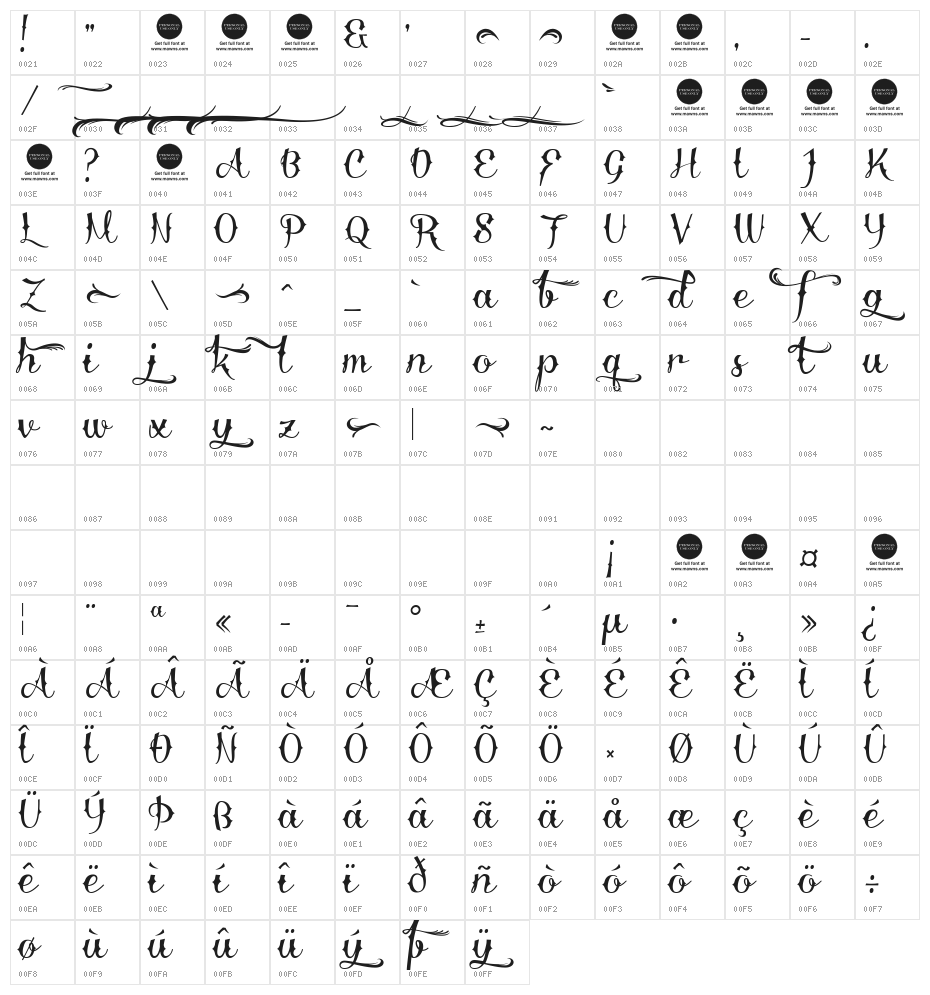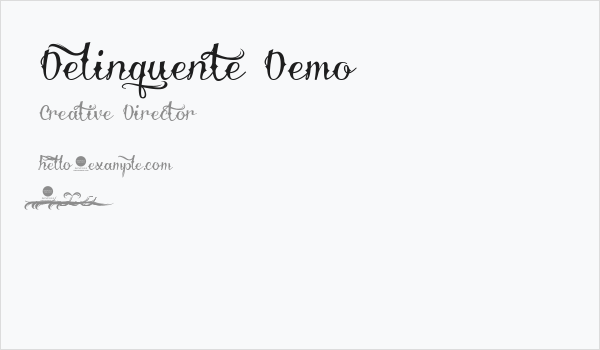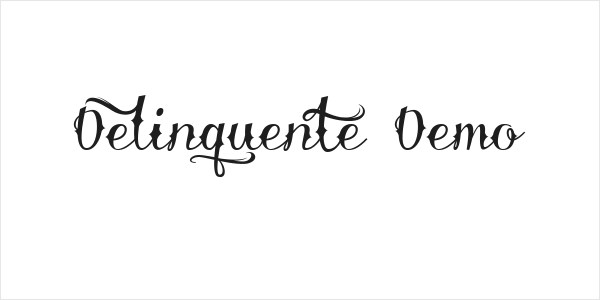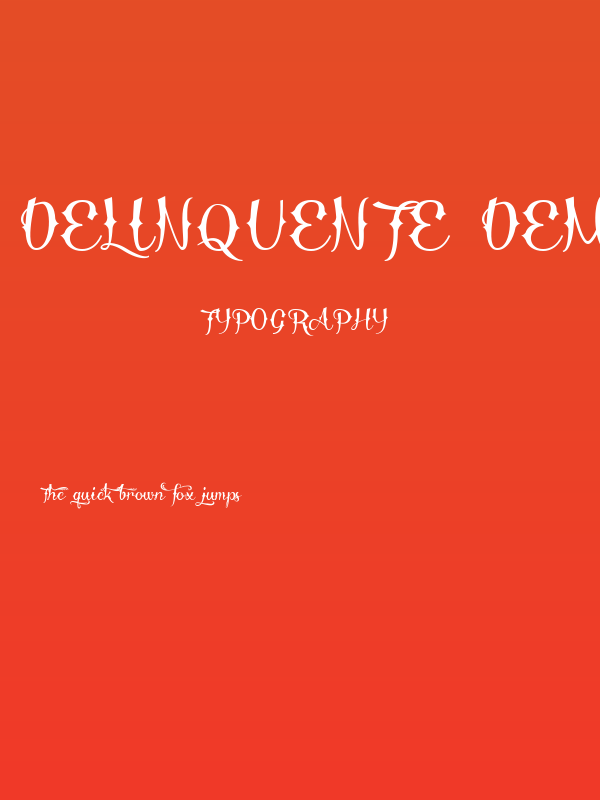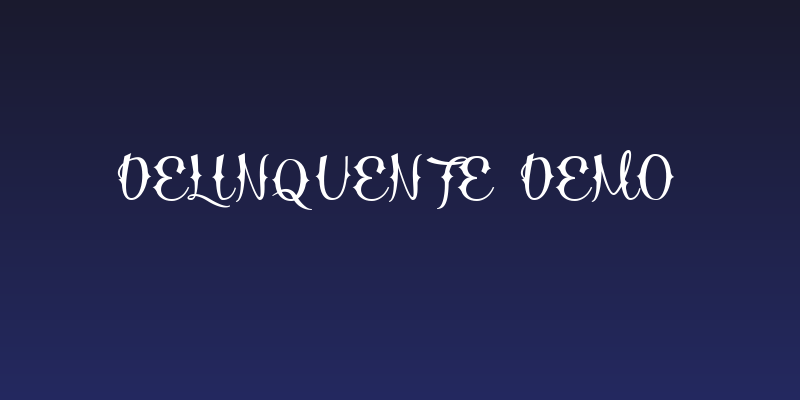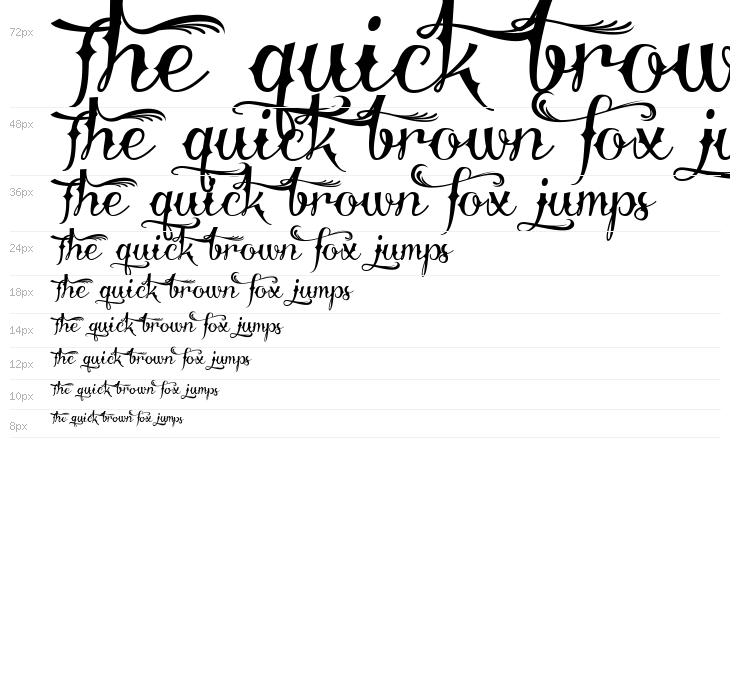
Delinquente Demo Font
Delinquente Demo Description
This font features an elaborate and decorative script style, characterized by its intricate swashes and flourishes. The uppercase letters are bold and ornate, with dramatic curves and loops that give a sense of elegance and sophistication. The lowercase letters maintain a consistent style, with flowing lines and a slightly condensed form that enhances readability while preserving the decorative nature. The numerals and special characters are designed to match the overall aesthetic, ensuring a cohesive look across all text. This font is ideal for projects that require a touch of luxury and artistic flair.
| Proposed Projects | Ideal for wedding invitations, luxury branding, high-end product packaging, and artistic posters. |